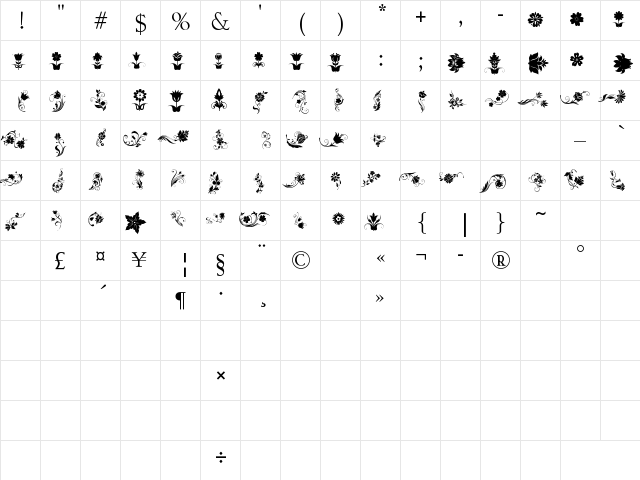
fotograami-flower Regular
fotograami-flower is a composed and adaptable typeface that performs quietly and consistently across a wide range of design contexts.